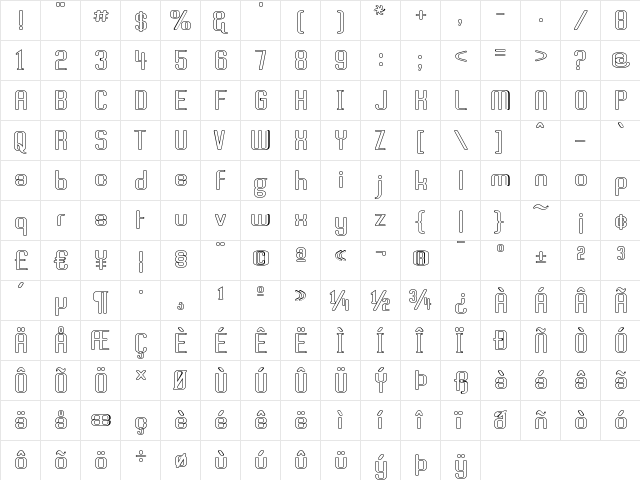
Brassiere Seethru Regular
| Designer | Graham Meade |
Design Context for Brassiere Seethru Typeface
Brassiere Seethru is a composed and adaptable typeface that performs quietly and consistently across a wide range of design contexts.